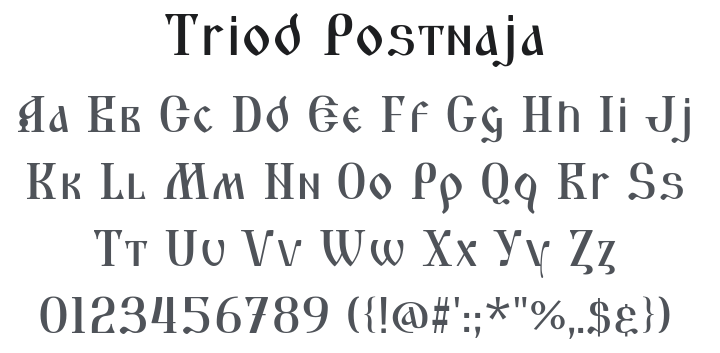
Triod Postnaja Font
About Triod Postnaja
Triod Postnaja attempts to mimic the typefaces used to publish Old Church Slavonic service books prior to the 20th century. It also provides a range of Latin letters in the same style, sufficient for the needs of central, northern and western European languages. Most Old Church Slavonic fonts that provide Latin ranges are problematic in the Latin lowercase, because they are not imitating the uncial style; I have attempted to avoid this problem, especially in lowercase letters with ascenders or descenders. I created many of the basic Cyrillic letterforms after eyeballing a very low-resolution image of the repertoire of Monotype Old Bulgarian. Triod Postnaja is something of a stylistic mishmash of various period styles.